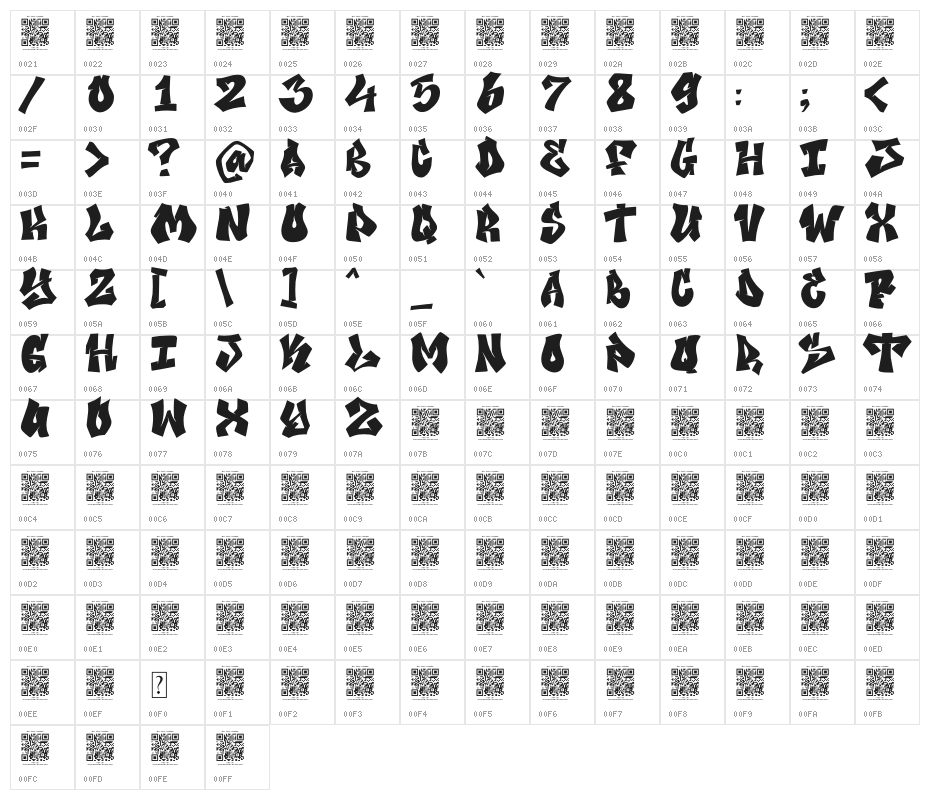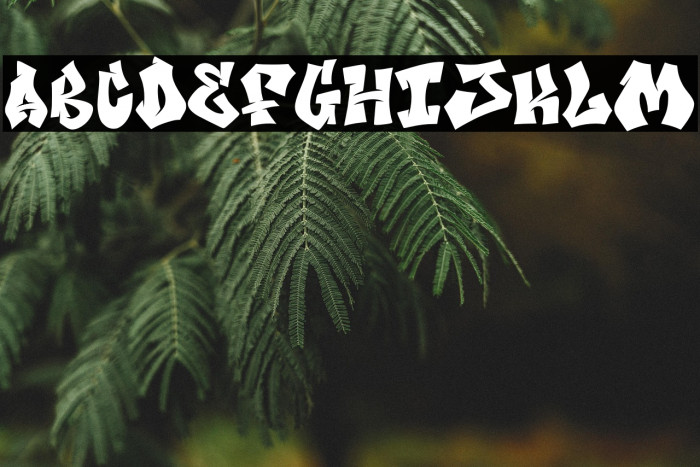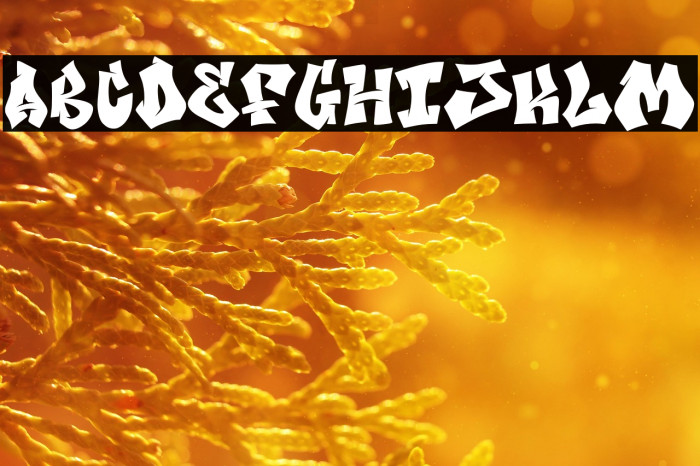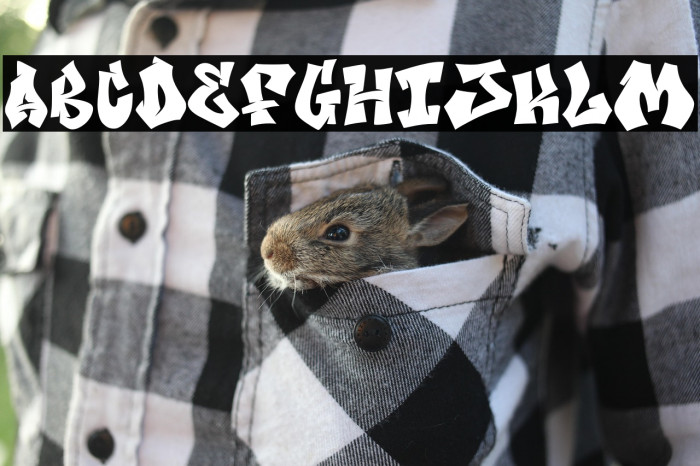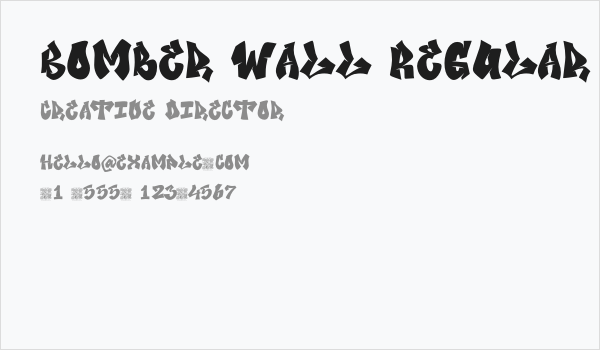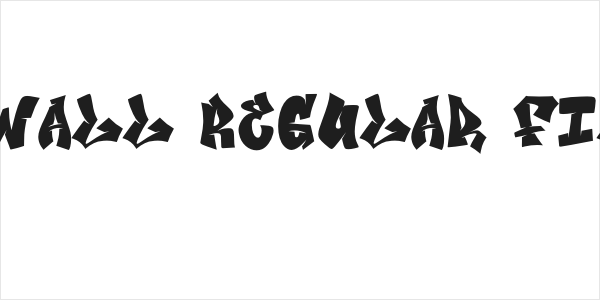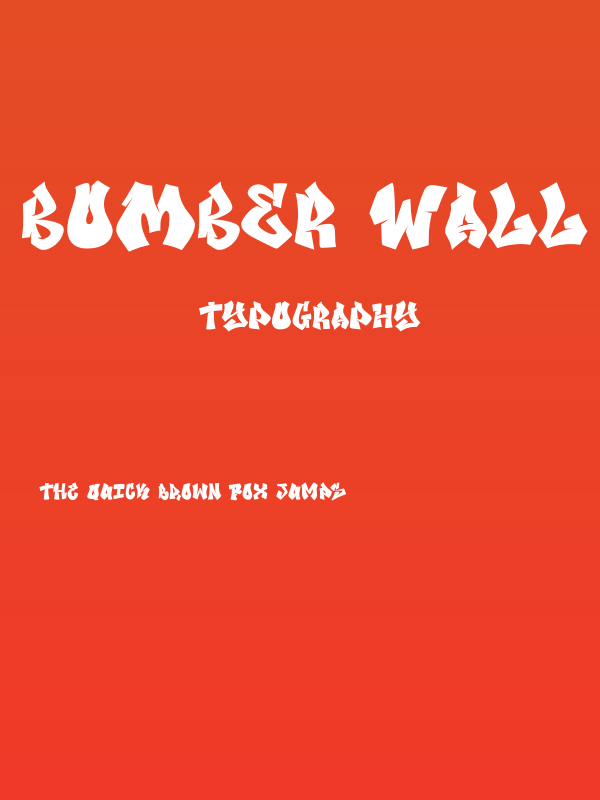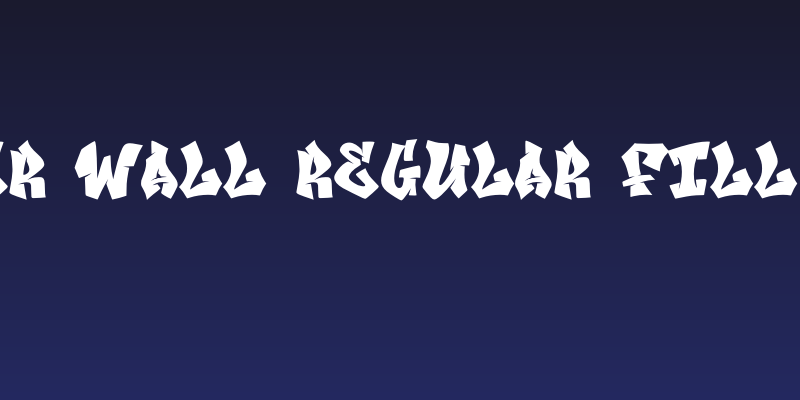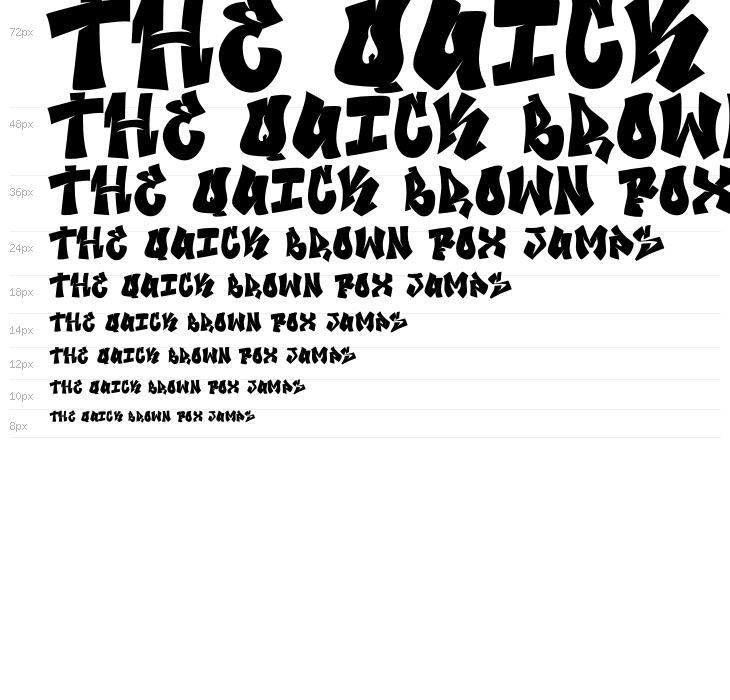
Bomber Wall Regular Fill Demo Font
Bomber Wall Regular Fill Demo Description
This font features a bold, graffiti-inspired style with sharp, angular edges and a dynamic, energetic appearance. The characters are heavily stylized, with a sense of movement and flair that captures the essence of street art. The uppercase and lowercase letters maintain a consistent design, while the numbers and special characters complement the overall aesthetic. The font's boldness and unique character shapes make it stand out, ideal for projects that require a strong visual impact.
| Overall Style | Modern, Urban |
| Proposed Projects | Ideal for street art projects, urban-themed designs, posters, and branding that requires a bold statement. |